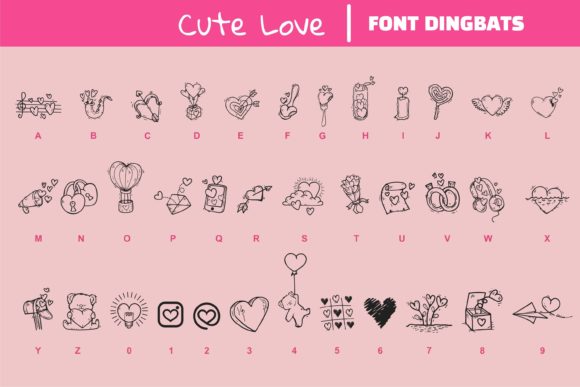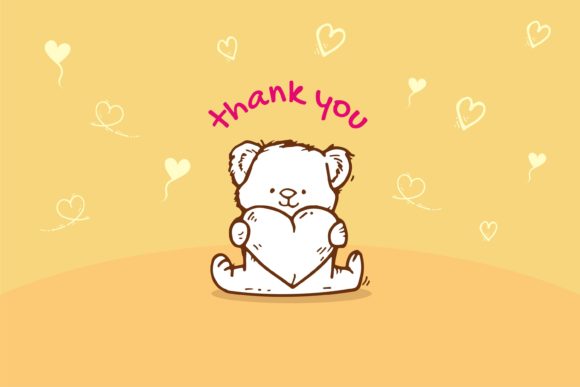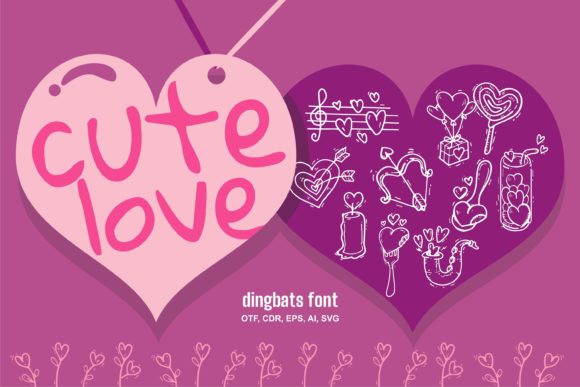
Cute Love Font: The Sweetest Addition to Your Design Arsenal
Are you tired of using the same old fonts for your designs, crafts, and digital projects? Look no further! Introducing Cute Love, a sweet, festive, and warm dingbats font that’s sure to become your new favorite go-to font for any occasion. In this article, we’ll dive into the world of Cute Love Font, exploring its features, uses, and benefits for designers, crafters, and digital enthusiasts alike.
What is Cute Love Font?
Cute Love Font is a unique and charming dingbats font that’s perfect for adding a touch of warmth and personality to your designs. With its sweet and festive vibe, this font is ideal for a wide range of projects, from crafts and digital design to presentations and greeting cards. Whether you’re a professional designer or a crafty hobbyist, Cute Love Font is sure to inspire your creativity and take your designs to the next level.
Features of Cute Love Font
So, what makes Cute Love Font so special? Here are just a few of its standout features:
- Sweet and Festive Design: Cute Love Font boasts a charming and playful design that’s perfect for creating festive and fun projects.
- Warm and Inviting: This font exudes a sense of warmth and coziness, making it ideal for designs that require a personal touch.
- Dingbats Style: As a dingbats font, Cute Love Font features a unique and creative design that’s perfect for adding visual interest to your projects.
- Versatile: Whether you’re using it for crafts, digital design, presentations, or greeting cards, Cute Love Font is a versatile font that can adapt to any occasion.
Uses of Cute Love Font
So, how can you use Cute Love Font in your designs? The possibilities are endless! Here are just a few ideas to get you started:
- Crafts: Add a personal touch to your craft projects, such as scrapbooking, card making, and DIY gifts.
- Digital Design: Use Cute Love Font to create stunning digital designs, including social media graphics, blog posts, and website headers.
- Presentations: Add a touch of personality to your presentations and slideshows with this unique and engaging font.
- Greeting Cards: Create beautiful and heartfelt greeting cards for special occasions, such as birthdays, holidays, and anniversaries.
Benefits of Using Cute Love Font
So, why should you choose Cute Love Font for your designs? Here are just a few benefits of using this amazing font:
- Easy to Read: Despite its playful design, Cute Love Font is easy to read and understand, making it perfect for both digital and print projects.
- Unique and Creative: This font offers a fresh and creative alternative to traditional fonts, allowing you to stand out from the crowd.
| Font Name | Cute Love Font |
| Author | onoborgol |
In conclusion, Cute Love Font is a sweet, festive, and warm dingbats font that’s perfect for designers, crafters, and digital enthusiasts alike. With its unique and creative design, versatile uses, and numerous benefits, this font is sure to become your new favorite go-to font for any occasion. So why wait? Download Cute Love Font today and start creating stunning designs that will capture the hearts of your audience!